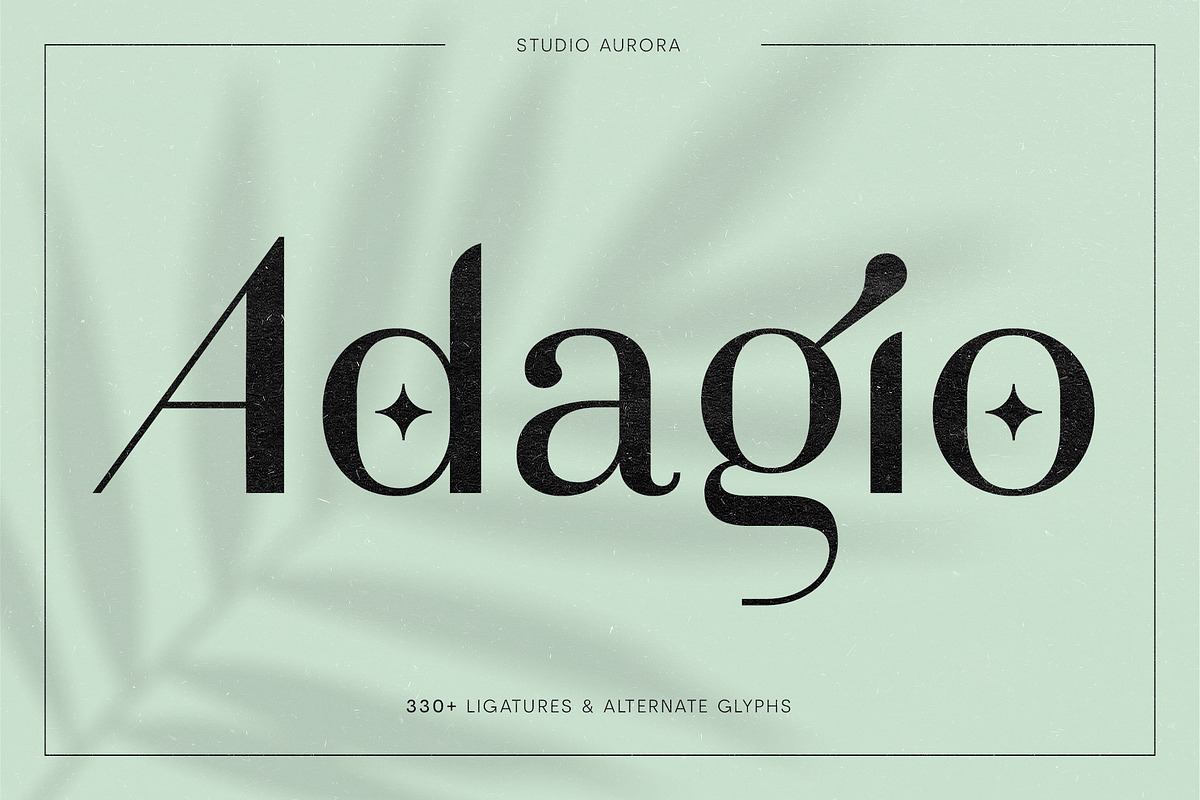
Adagio Decorative Ligature Font Duo Free Download
Adagio Decorative Ligature Font Duo Free Download is an elegant and artistic font pairing that combines sophisticated ligature details with decorative elements for a refined and creative touch. The duo includes a stylish script font and a complementary serif, both designed to work seamlessly together. Perfect for creating luxury branding, invitations, logos, and artistic designs, this font duo brings both personality and elegance to your projects. Whether you're designing a high-end wedding invite, a creative logo, or unique editorial layouts, Adagio Decorative Ligature Font Duo Free Download allows you to explore its beauty in personal projects before purchasing a commercial license. Elevate your designs with this stylish and versatile font duo that adds a unique touch to any project.